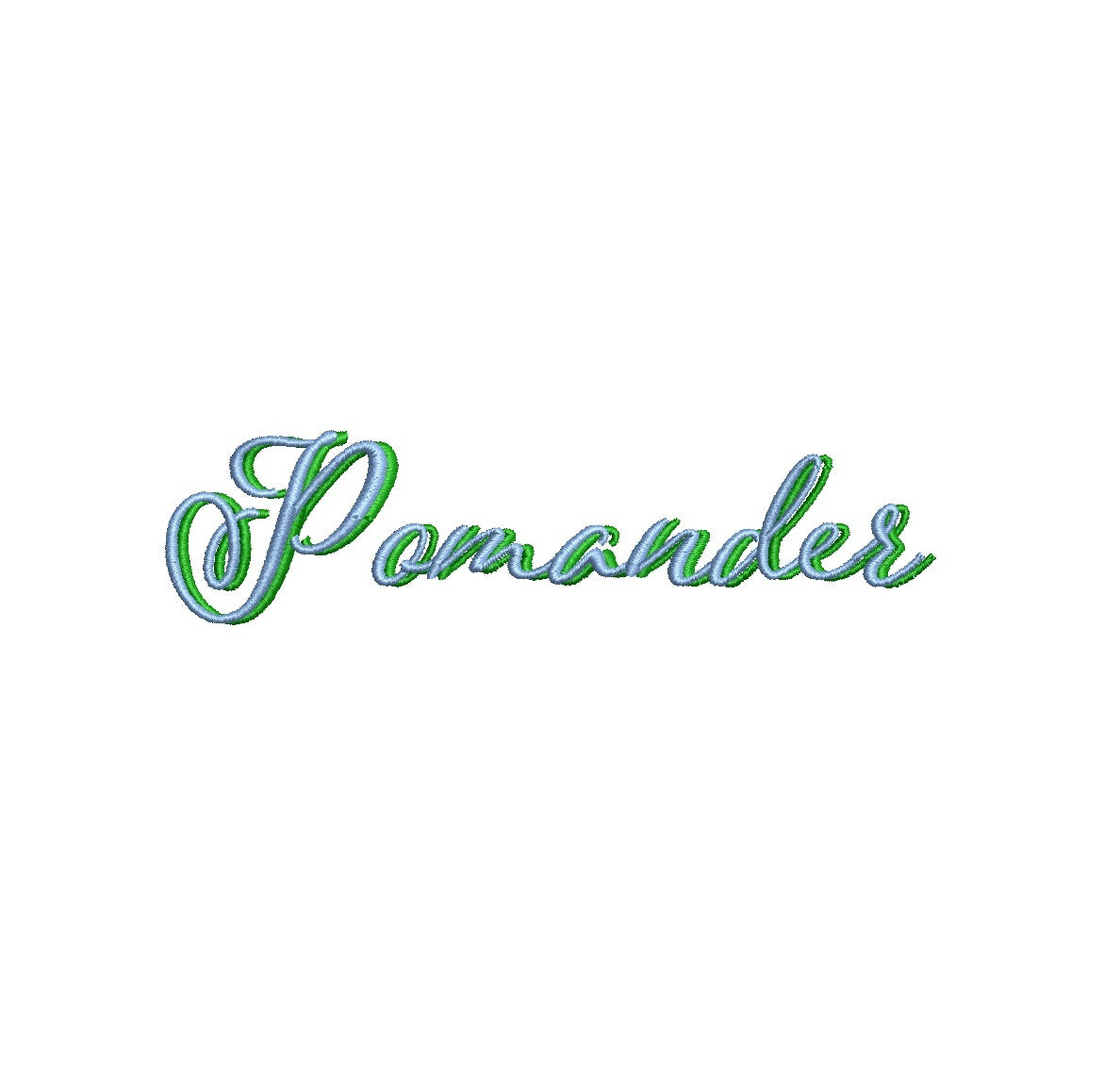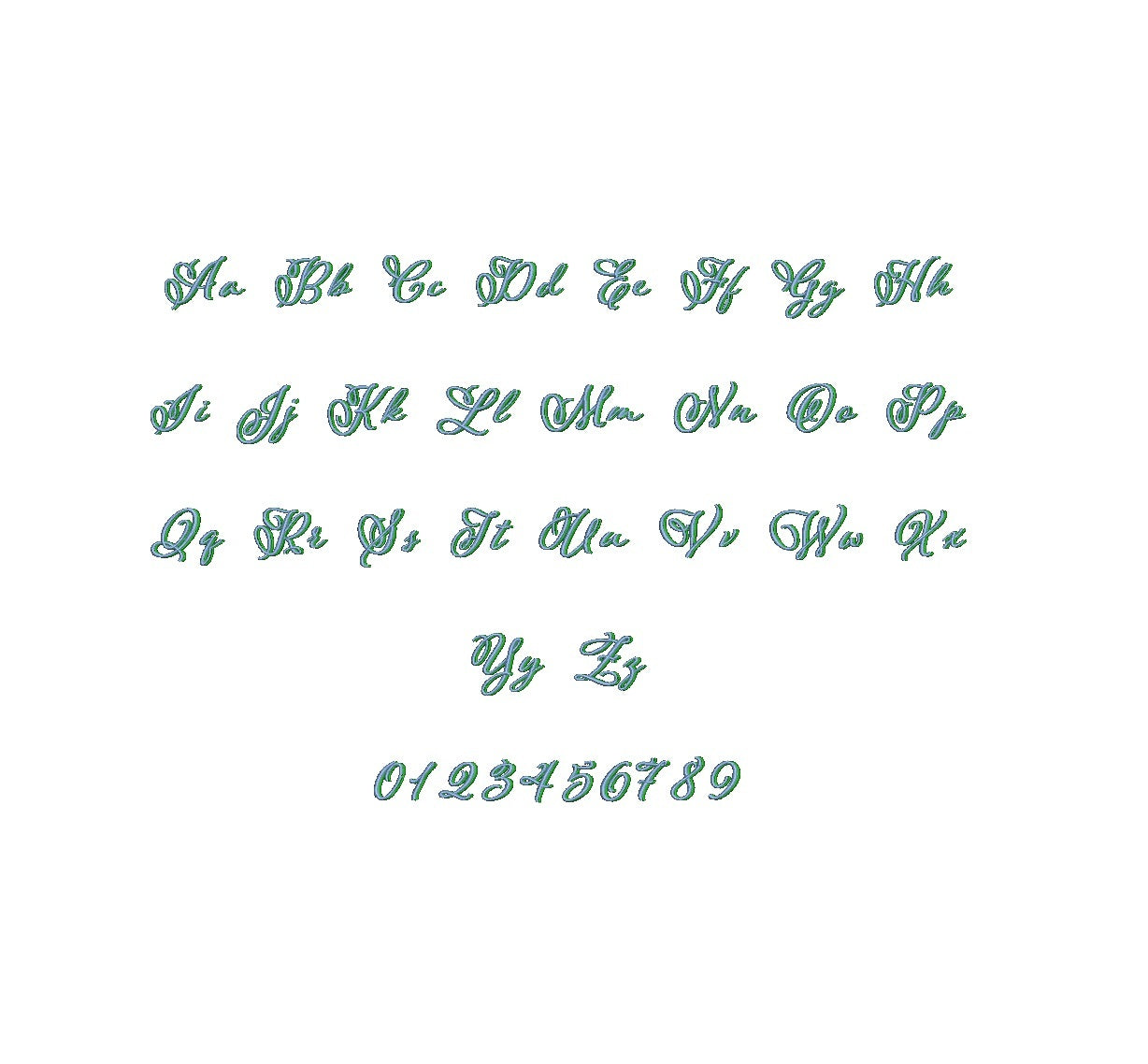
Elevate your embroidery projects with the charming Pomander Shadow ESA font. Designed for compatibility with Wilcom Studio e4.5.6 and Hatch 3 versions and newer, this font seamlessly marries style and functionality. Create eye-catching designs with its distinctive shadow effect, adding depth and intrigue to your lettering. Ideal for various applications, from monograms to elegant text layouts. Effortlessly channel your creativity as Pomander Shadow ESA font brings a touch of sophistication to your embroidery. Elevate your craftsmanship and leave a remarkable impression. Choose this font to infuse your designs with timeless elegance and exquisite detail.